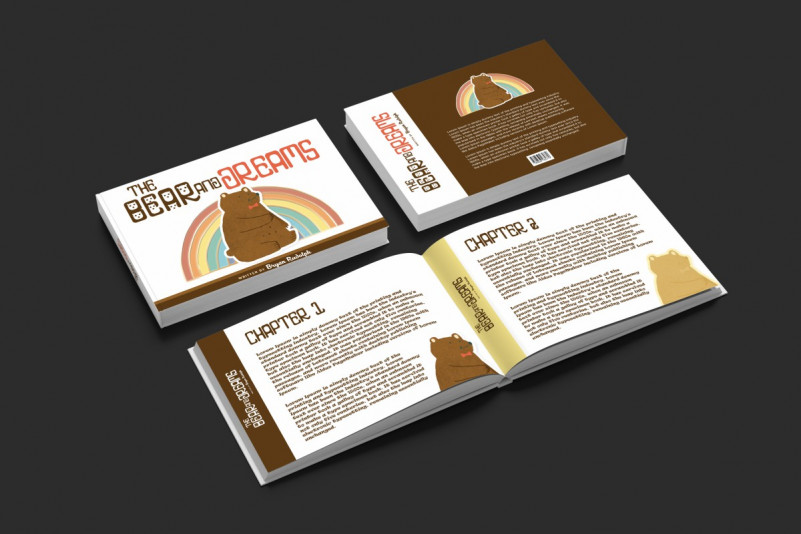
Facebear Display Font
This is a 100% FREE Font. It is display font that uniquely has modern shapes and decorative special shapes. Use it for logos, print,, headline, body text, and more! Inspired from games tittle and animal
Facebear Display Font includes full set of Uppercase and Lowercase Basic Characters, Numerals and Punctuation. Facebear will be great for Use it for any project that needs a unique, authentic look! Perfect for branding, labels, headline, posters, websites and so much more!
Facebear has two styles : regular and fancy.